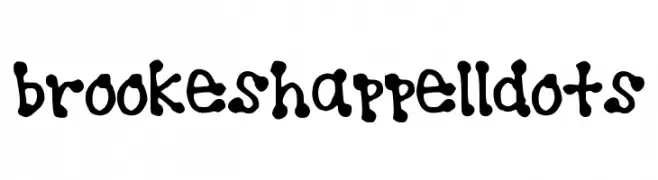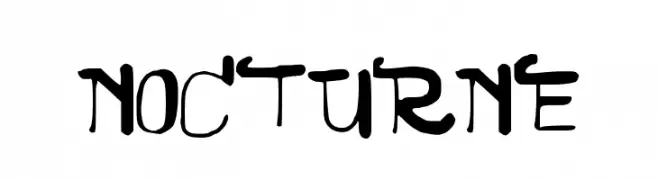
( Fonts by Altea )
A bold, geometric font with a modern and angular design.
( Fonts by thiagowdr )
A playful, bold, and hand-drawn font with rounded edges.
A modern, geometric typeface with uniform width and bold characters.
( Fonts by Ana Maria Baštijanović )
A playful, bold font with thick, rounded, hand-drawn characters.
A bold, outlined font with a dynamic and energetic style.
A bold, modern font with a strong, dynamic presence.
( Samuel W. )
A bold, playful font with a distressed texture and rounded, irregular characters.
( illustrateddaydreams.tumblr.com/ )
A playful, handwritten font with tall, narrow letters and a casual style.
An artistic font with abstract, Picasso-inspired face designs for each character.
( Luc Mahler )
A bold, geometric font with sharp angles and a modern aesthetic.
( Luc Mahler )
A geometric, modern font with clean lines and sharp angles.
( Luc Mahler )
A modern geometric font with sharp angles and clean lines.
( Luc Mahler )
A bold, italicized font with sharp angles and a modern, dynamic style.
( Luc Mahler )
A modern, slanted script font with elegant curves and sharp angles.
( Luc Mahler )
A dynamic, italic font with sharp angles and a modern style.
( Luc Mahler )
A bold, geometric font with a modern, futuristic style.
( Luc Mahler )
A modern, geometric font with narrow, elongated characters and sharp angles.
( Luc Mahler )
A modern, narrow font with angular and geometric design elements.
( Luc Mahler )
A narrow, slanted font with a modern and decorative style.
( Luc Mahler )
A bold, italicized, and narrow font with a dynamic and modern style.
( Luc Mahler )
A sleek, narrow, and italicized font with a modern and elegant style.